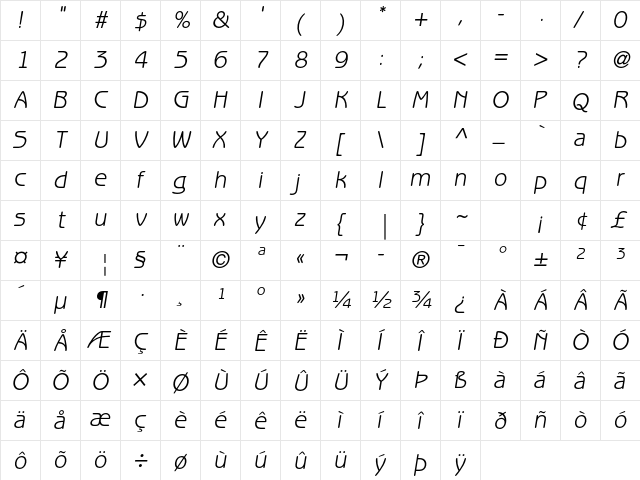
ITC Benguiat Gothic Std Book Oblique Font Preview
ITC Benguiat Gothic Std Book Oblique
ITC Benguiat Gothic Std Book Oblique Font Details
| Designer | Ed Benguiat |
Design Context for ITC Benguiat Gothic Std Typeface
ITC Benguiat Gothic Std takes a clean, functional approach — its unadorned letterforms prioritise legibility and work reliably across screen and print environments. Its italic angle brings a sense of urgency and motion to the letterforms.
Font Pairing: Works well alongside a characterful serif or display font that can carry the expressive load while ITC Benguiat Gothic Std handles the functional copy.